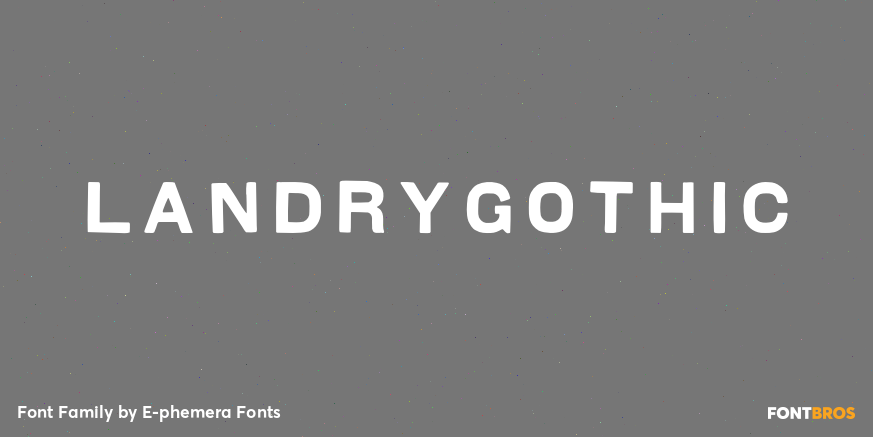
About LandryGothic
Landry Gothic is inspired by a wood type alphabet by an unknown designer. It was digitized in order to make prop signage for movies and television. Its imperfect lines and rounded corners are meant to capture the feeling of real wood or metal type that\’s…